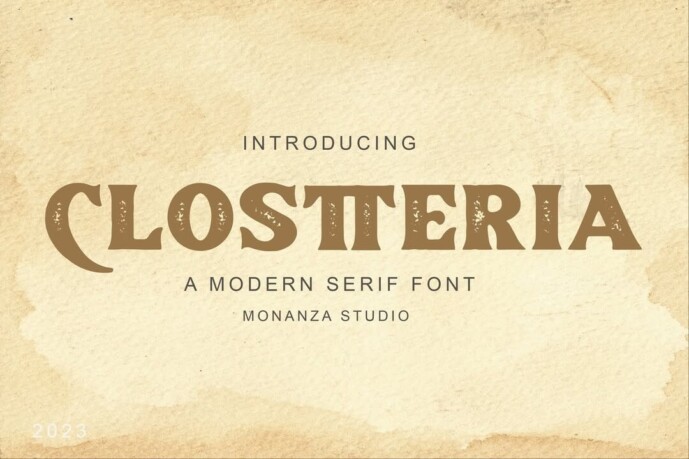
Clostteria Font
Designer: monanza studio
Clostteria Font your next favorite Modern Serif Font. With its unique and imaginative form, Clostteria captures the eye and invites creativity in any design project it graces. Unleash its potential and you’ll soon find it indispensable for fulfilling your design needs.
This font, with its distinct charm and character, strikes the perfect balance between classic and contemporary, culminating in a font structure that is as versatile as it is visually enriching. Clostteria isn’t just a font. It’s an ingredient to a creative recipe. A catalyst for design inspiration. A tool for the modern artisan. Experience it for yourself, and let Clostteria carry your projects from concept to unforgettable completion.